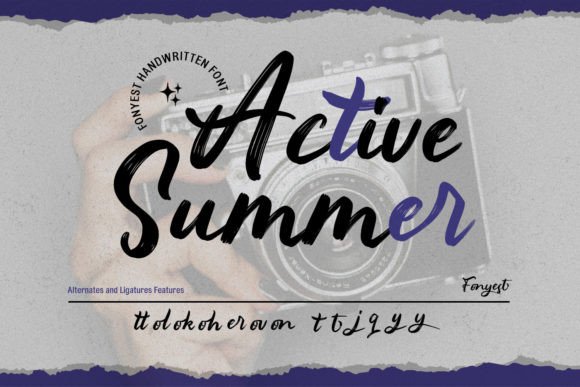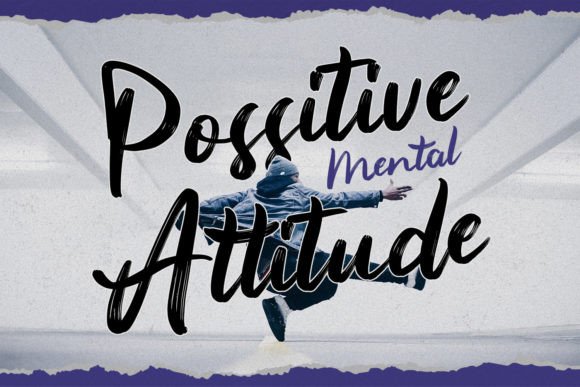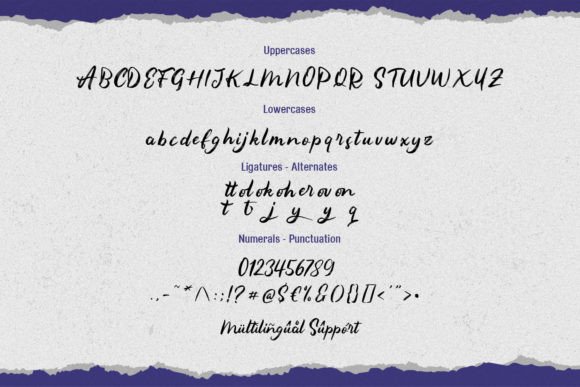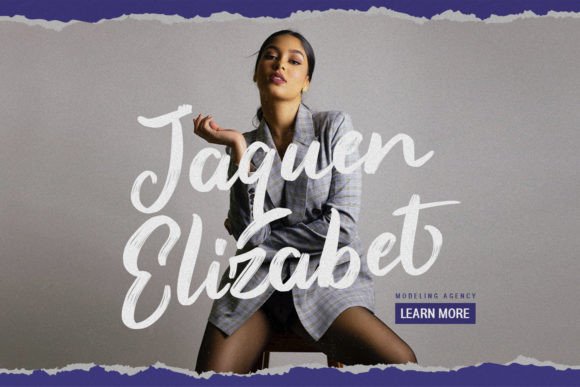
Fonyest Font
About Fonyest Font
“Fonyest” is not just a font; it’s a cool and modern brush-style handwritten typeface designed to be an incredible asset in your font library. With its contemporary brush strokes, this font has the potential to elevate any creation, making it a versatile and impactful choice for a variety of design projects.
The cool and modern aesthetic of “Fonyest” is reflected in its brush-style design. The font brings a dynamic and stylish quality to your text, making it suitable for a wide range of applications. Whether you’re working on branding, posters, social media graphics, or other creative endeavors, this font adds a touch of freshness and modernity.
The versatility of “Fonyest” is showcased by its adaptability to different design needs. Its brush-style handwriting makes it a great fit for projects that require a contemporary and artistic touch. The font becomes a go-to choice for designers seeking to infuse a sense of energy and creativity into their work.
Adding “Fonyest” to your font collection becomes an invitation to explore the cool and modern side of design. The font stands out as an asset that can enhance the visual impact of your projects. Let it be the key element that brings a touch of artistic flair to your branding, posters, and various other creative designs.
In summary, “Fonyest” is more than just a font; it’s a cool and modern brush-style handwritten typeface designed to elevate your creations. Embrace its dynamic and stylish qualities, and confidently add it to your font library. “Fonyest” is an invitation to explore the artistic and impactful possibilities it brings to your design projects.